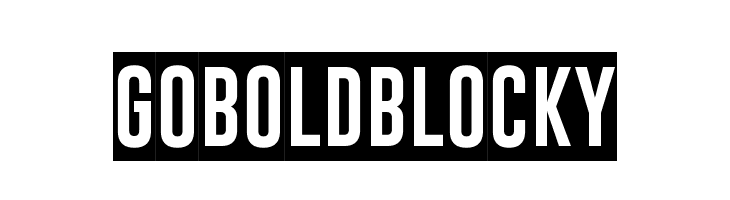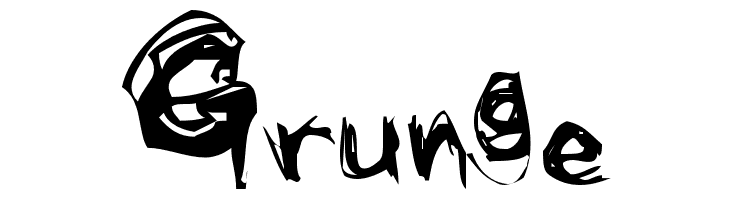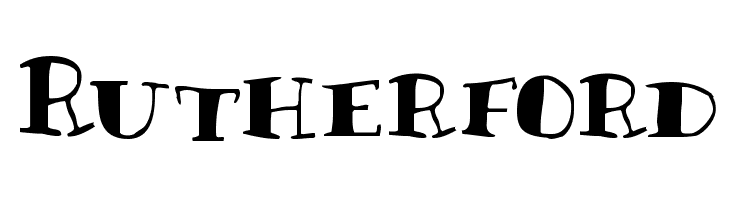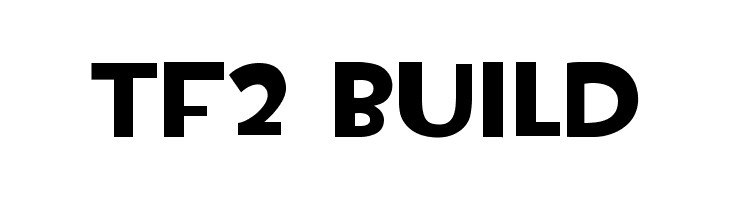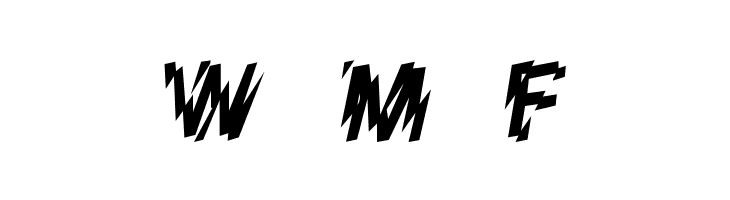
A playful, hand-drawn font with tall, narrow letters and a whimsical style.
A bold, italicized font with a futuristic and dynamic design.
A bold, blackletter font with a Gothic, medieval style.
A modern sans-serif font with an italic slant, offering clarity and versatility.
A bold, angular font with a gothic influence and pointed serifs.
A bold, edgy font with dynamic, uneven strokes and a strong visual impact.
A bold, italicized sans-serif font with a modern and dynamic style.
An elegant cursive font with swash elements, perfect for adding sophistication.
A rustic, hand-drawn font with uneven strokes and a whimsical touch.
A jagged, distressed font with a spooky, horror-themed aesthetic.
A modern italic font with sleek, angular letterforms.
A bold, geometric font with a modern, stencil-like design.
A bold, brush-style font with dynamic, energetic strokes.
A bold, playful font with exaggerated, uneven strokes and a whimsical style.
A bold, artistic font with a blend of geometric and organic shapes, perfect for creative projects.
A bold, high-contrast serif font with elegant curves and a modern twist.
A bold, condensed font with a modern and impactful style.
A bold, rounded font with a futuristic and playful style.
A playful, hand-drawn font with whimsical and expressive characters.
A bold, playful font with a hand-drawn, artistic style.
A modern, geometric font with rounded elements and consistent stroke width.
A playful, hand-drawn font with a scribbled texture and bold, sketch-like letters.
A playful serif font with decorative flourishes and a classic yet modern appeal.
A bold, modern sans-serif font with clean lines and strong presence.
A bold, geometric font with a modern and impactful design.
A bold, geometric font with a mechanical and industrial aesthetic.
A modern, italic font with sleek, consistent strokes and a dynamic appearance.